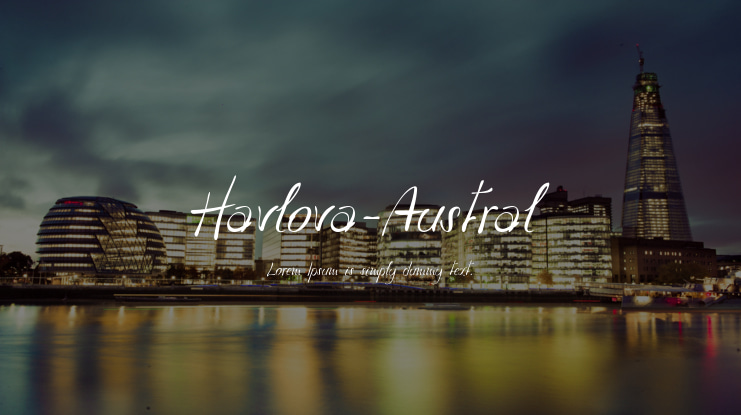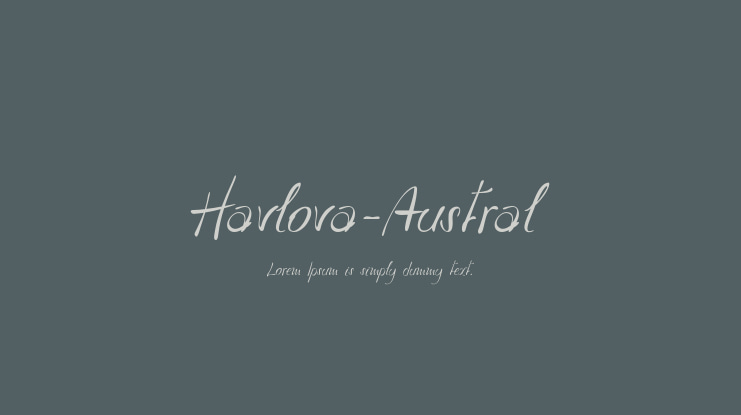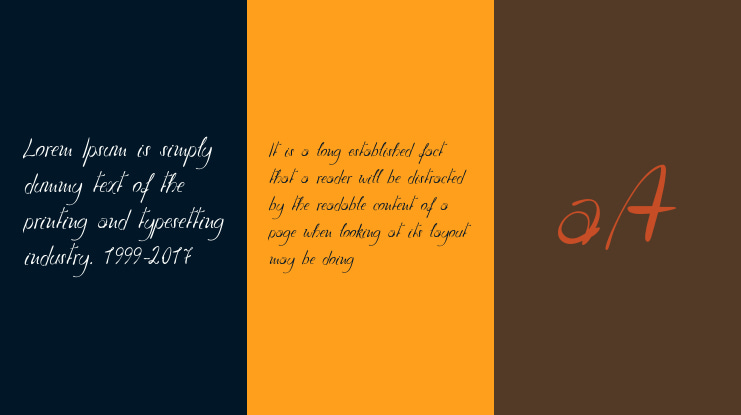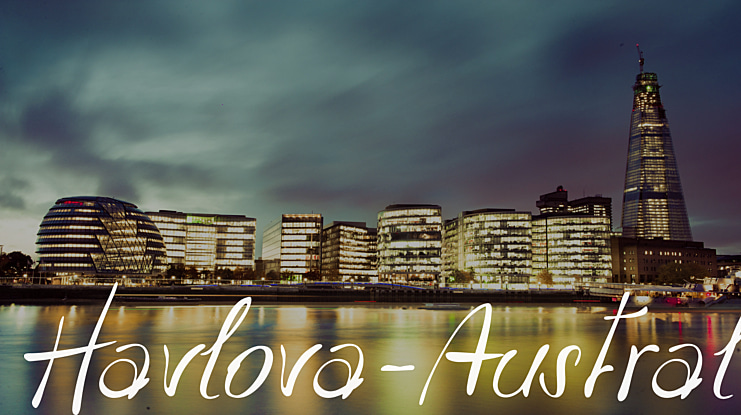
Havlova-Austral Font
Based on the calligraphy of czech-australian photographer Sonia Havlova Makac. If you want to know the work of the woman whose calligraphy inspirated the font Havlova, visit her site at www.bohemiansecret.net.au
They used this font in the opening credits of a Brazilian TV Novell called "Amor à Vida". I am not a fan of television novels, but I love to see my work presented with another wonderful animation by the artist Ryan Woodward (ryanwoodwardart.com).
Created by Cleber Giovani Soares, May 2007